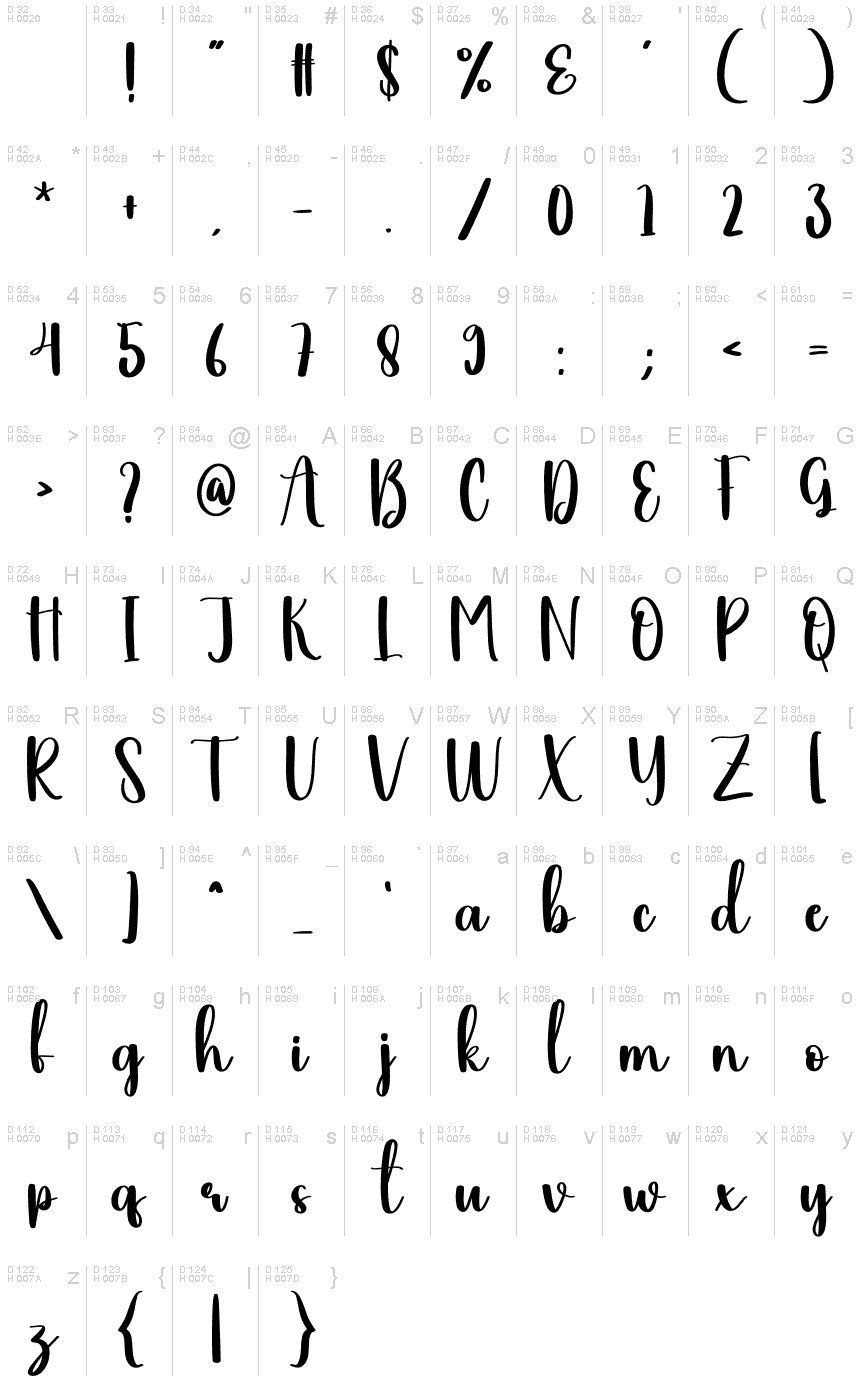
Friends
Friends is a semi-bold, semi-condensed font designed by scratchones with a unique hand-drawn style. Its smooth brush and marker strokes make it perfect for projects requiring a natural and organic feel. With its playful and casual appearance, Friends is ideal for creating invitations, greeting cards, social media posts, and branding materials for kid's parties or events. It can also be used for modern calligraphy designs or product packaging that requires a touch of personality. Get creative with Friends and elevate your designs with its charming handwritten look!
the latest style letters are perfect for wall displays, wedding invitations, social media post logos, advertisements, product packaging, product designs, labels, photography, watermarks, invitations, stationery, and any project that requires taste handwriting.